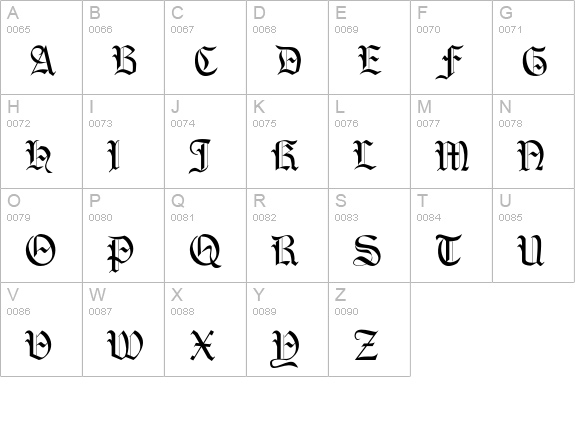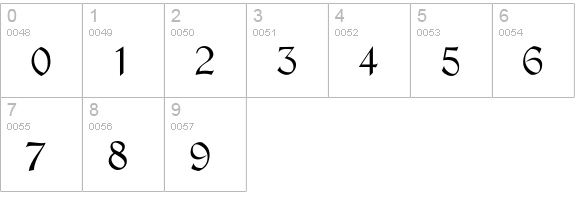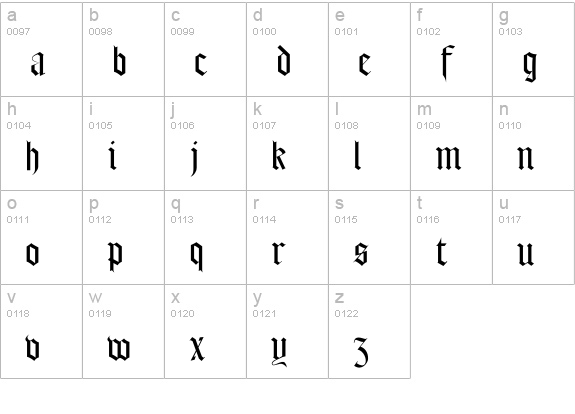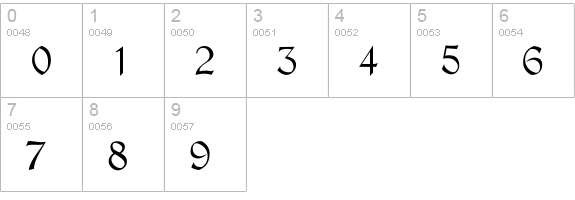
Cordoba Font Details
Cordoba font is a striking and elegant typeface that exudes sophistication and style. With its graceful curves and sharp lines, Cordoba is perfect for adding a touch of class to any design project. Whether you're creating a logo, poster, or website, this versatile font is sure to make a lasting impression. And the best part? Cordoba font is completely free to download at FontsMarket.com. So you can enhance your projects with this beautiful typeface without breaking the bank. Don't miss out on the opportunity to elevate your designs with the timeless beauty of Cordoba font – download it today and let your creativity shine!